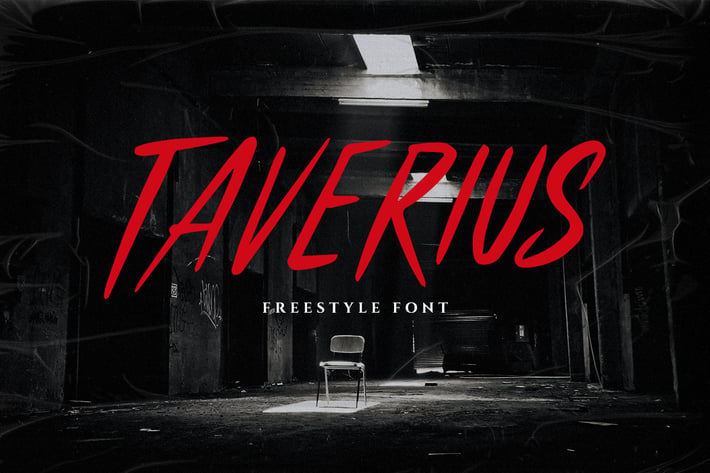
Taverius Typeface
Introducing, Taverius Typeface. A horror typeface. This item is really perfect for you who needs a typeface for especially logotype, apparel, invitation, branding, packaging, and advertising with some horror touch. This typeface has features :
Uppercase, lowercase, punctuations
Symbols & numerals
Ligatures